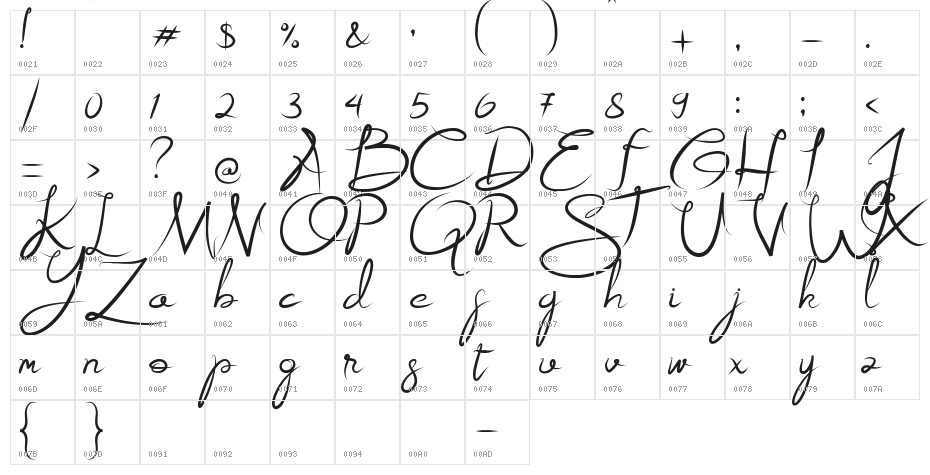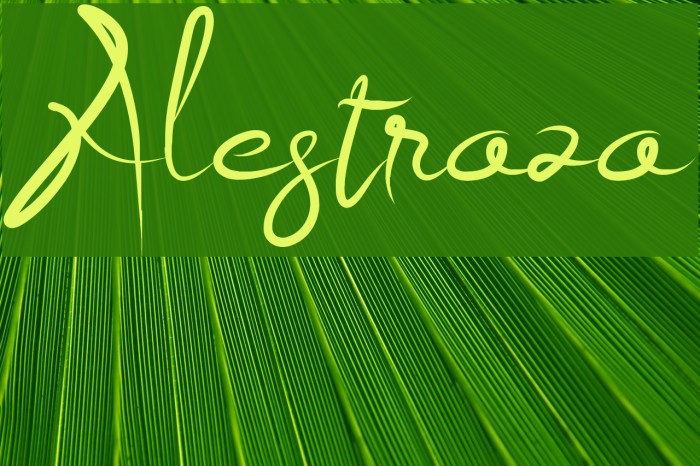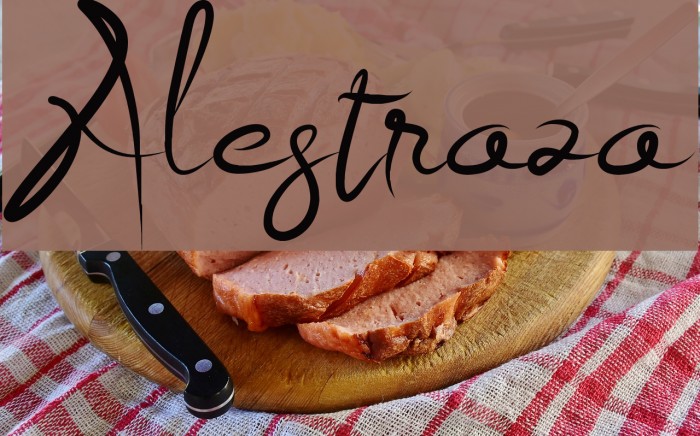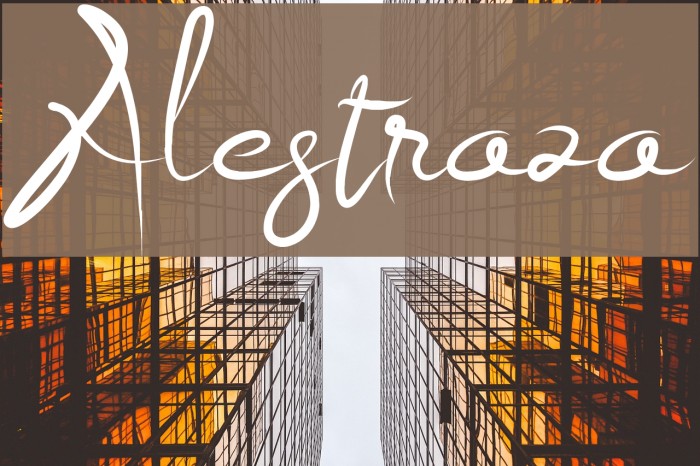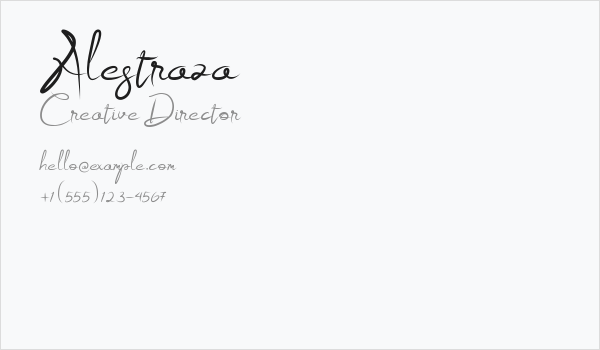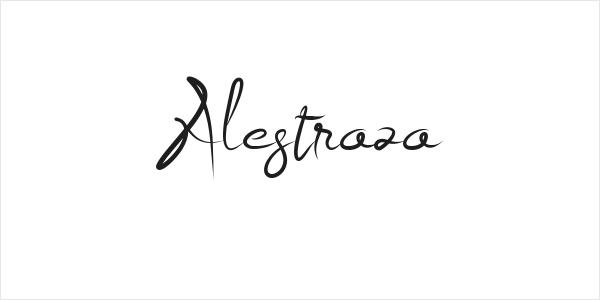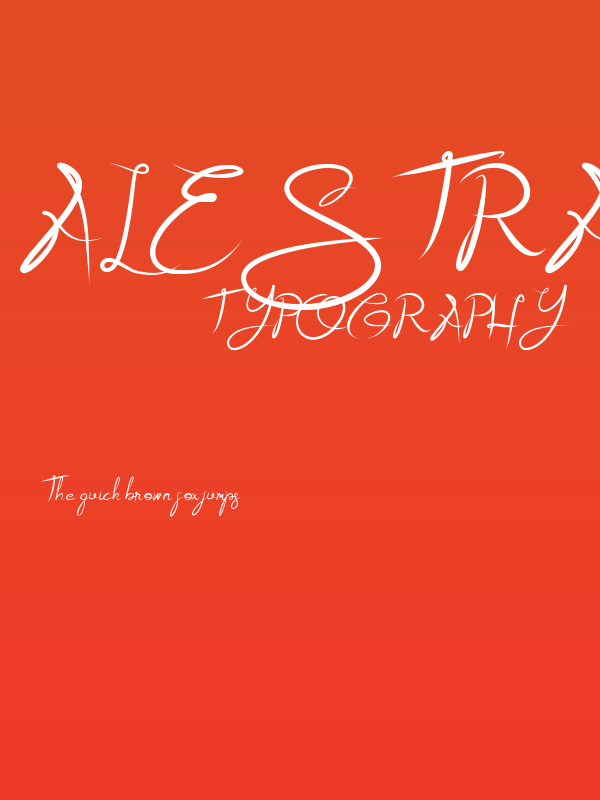
Alestraza Font
Alestraza Description
This font features a dynamic and flowing script style, characterized by its elegant, cursive strokes that mimic natural handwriting. The uppercase letters are slightly more structured, providing a balanced contrast to the more fluid lowercase characters. The numbers and special characters maintain the same flowing aesthetic, ensuring consistency throughout the typeface. The overall appearance is both sophisticated and approachable, making it suitable for a variety of creative applications. The font's design incorporates subtle variations in stroke thickness, adding a touch of refinement and enhancing readability.
| Proposed Projects | Ideal for wedding invitations, greeting cards, branding projects, and elegant packaging designs. |